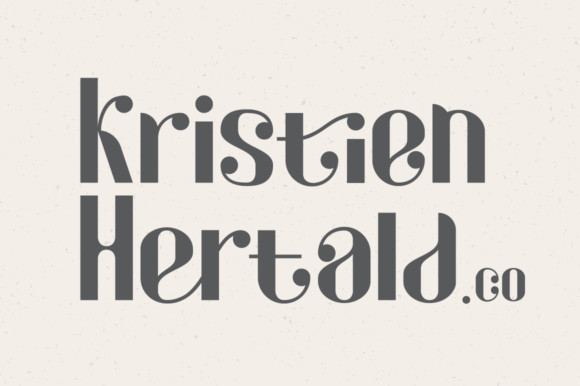
Qartiant Font
Qartiant is a stylish and elegant display font with clean and neat characters. It sends a powerful message and the typeface can be successfully used in logos, magazines, posters, branding, websites, greeting or wedding cards and much more.